Typography, often regarded as the art and technique of arranging letters, plays an integral role in design and communication. One of its foundational elements is the typeface, which can be considered the 'persona' of text, greatly influencing how it's perceived and understood. Let’s dive deeper into understanding typefaces and their significance in typography.
What is a Typeface?
At its core, a typeface is a design style of a set of characters that includes letters, numbers, punctuation marks, and other symbols. Each typeface has its distinct design, including variations in shape, stroke thickness, and spacing. To put it simply, if typography were likened to a person, the typeface would be their face – distinct, recognisable, and imparting a particular mood or emotion.
Categories of Typefaces
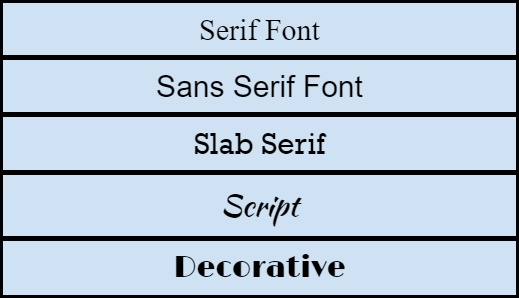
- Serif: Characterised by small lines or "tails" attached to the end of a stroke in a letter. This category imparts a traditional, formal feel. Examples include 'Times New Roman' and 'Georgia'.
- Sans Serif: As the name suggests, these lack the "tails" of serifs. They have a more modern, clean appearance. 'Helvetica' and 'Arial' are famous examples.
- Slab Serif: This is a variation of the serif typeface but with blockier, thicker serifs. 'Rockwell' is a well-known slab serif.
- Script: Typefaces in this category emulate cursive or handwriting styles. They can range from formal (like 'Edwardian Script') to casual (like 'Brush Script').
- Decorative/Display: These typefaces are typically more elaborate and are used sparingly, mainly for headlines or logos rather than body text. 'Jokerman' and 'Papyrus' are examples.
The Anatomy of a Typeface
Understanding the anatomy of a typeface is akin to analyzing the skeletal structure of the human body. Just as our bones give us shape and support, the individual elements of a typeface contribute to its distinct appearance and readability. Let's explore these elements and understand their significance.
- Baseline: This is the invisible line on which characters sit. Think of it as the ground a letter stands on.
- x-height: Represents the height of lowercase letters excluding ascenders or descenders, typically the height of the letter 'x.'
- Ascender: The portion of a letter that extends above the x-height. Found in letters like 'b' or 'h.'
- Descender: The part of a letter that stretches below the baseline. Seen in letters like 'p' or 'g'.
- Serif: Small decorative strokes at the end of a letter's main strokes. Present in typefaces like 'Times New Roman.'
- Stem: The primary, usually vertical, stroke of a letter.
- Bowl: The curved part of letters that enclose a space, like in 'b' or 'd'.
- Crossbar: The horizontal stroke in characters. For example, the middle line in 'A' or 'H'.
Examples of Typeface
- Times New Roman: A classic serif typeface that's been widely used in print media. It conveys a sense of tradition and formality.
- Helvetica: A popular sans-serif typeface known for its clean lines and modern appeal, often found in corporate branding and graphic design.
- Brush Script: As the name suggests, this script typeface emulates brush handwriting, conveying a sense of creativity and flow.
- Jokerman: A decorative typeface that is playful and eccentric, suitable for designs meant to captivate and entertain.
Aren't These Fonts?
It's a common misconception to use the terms 'font' and 'typeface interchangeably,' but they are distinct concepts in typography. Delving into their differences can clarify and enhance our understanding of the type world.
Typeface vs. Font
- Typeface: As earlier discussed, a typeface is the design style of a set of characters, encompassing its overall look and feel. Think of it as a family that shares common design traits. For instance, 'Helvetica' is a typeface representing a consistent design across its characters.
- Font: A font, on the other hand, is a specific weight, width, and style of a typeface. It's a member of the typeface family. For example, 'Helvetica Bold' and 'Helvetica Italic' are fonts belonging to the 'Helvetica' typeface. While the typeface defines the general design aesthetics, a font specifies attributes like size, weight (light, regular, bold), and style (italic, regular).
Using an analogy, if a typeface is a music album, then a font is a specific song from that album. Below is an example of the difference between the typeface and font to help you get a better idea.
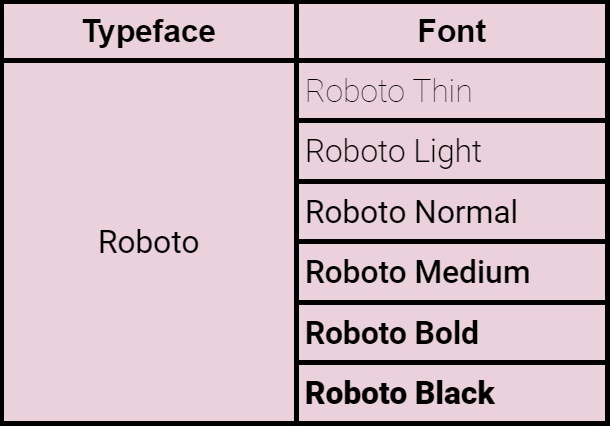
Final Words
In the intricate dance of design and communication, typography reigns supreme with typeface at its heart. Each typeface, from the formal 'Times New Roman' to the sleek 'Helvetica,' shapes our perception of the text. Beyond aesthetics, understanding the distinction between 'typeface' and 'font' enhances clarity and intention in our designs, making each word resonate deeper with its audience.